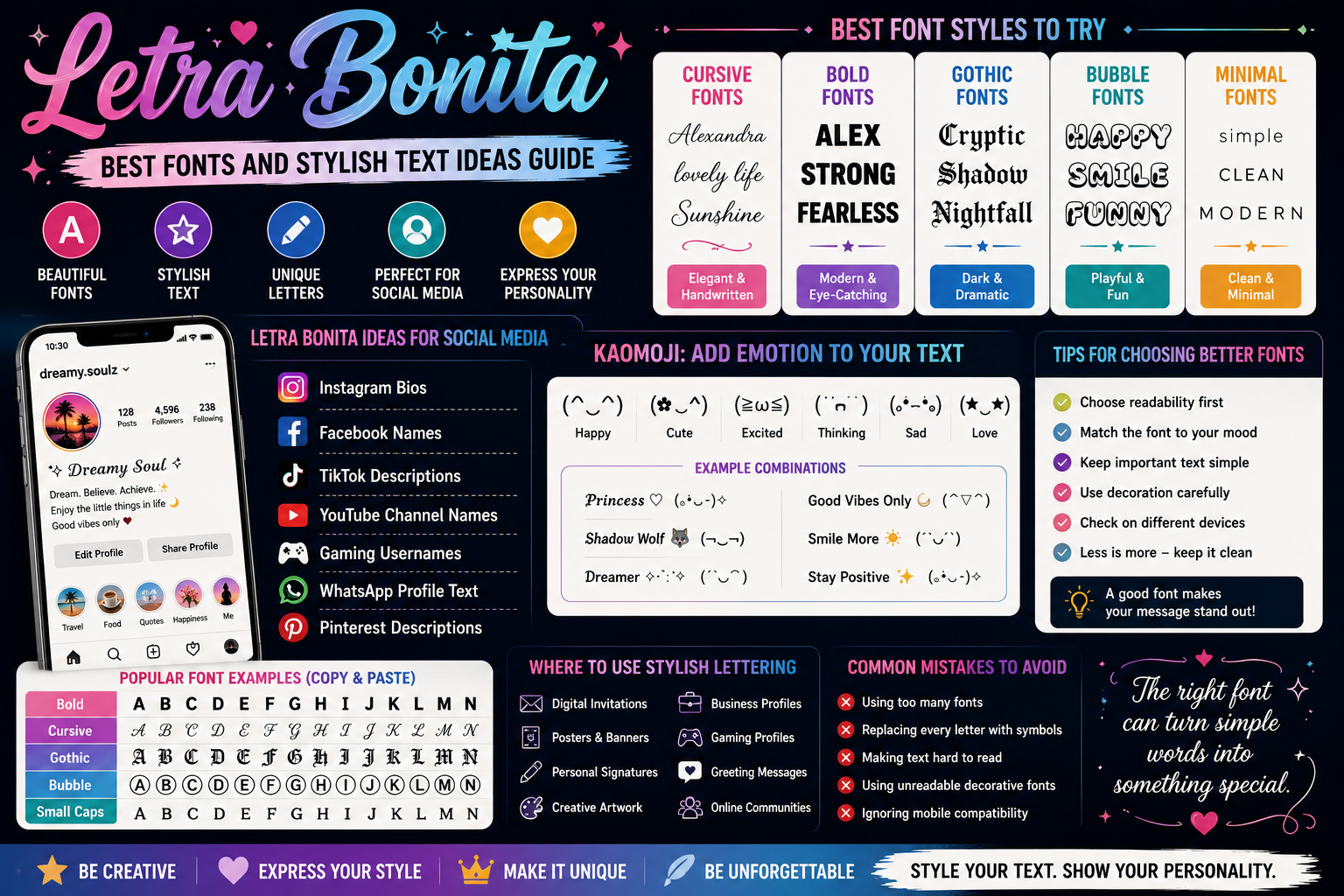
Letra Bonita: Best Fonts and Stylish Text Ideas Guide
Finding the right font can make ordinary words look much more interesting. Letra Bonita is a simple idea for anyone who wants to turn regular text into stylish, creative, and eye-catching writing. Whether you are creating a social media bio, profile name, caption, invitation, or personal message, the right font can give your words a fresh look.
Stylish text is no longer limited to graphic designers or special editing apps. Today, people can use different font styles, symbols, decorative letters, and text combinations to make their content stand out. With a few creative choices, even a short name or sentence can have a completely different feel.
What Is Letra Bonita?
The phrase Letra Bonita means “beautiful lettering” in Spanish. It can refer to attractive handwriting, decorative fonts, fancy text, or creative lettering styles used for digital and printed content.
The idea is simple: take normal letters and present them in a more interesting way. Depending on the font, your text can look elegant, playful, bold, classic, or artistic.
Common examples include:
• Cursive and handwritten fonts
• Bold and modern lettering
• Gothic-style characters
• Bubble letters
• Small-capital text
• Decorative Unicode characters
• Spaced-out lettering
• Script-style fonts
These styles are useful for social profiles, usernames, captions, posters, digital invitations, and creative projects.
Best Font Styles to Try
Different situations call for different lettering styles. Choosing a suitable font can make your text easier to understand while still giving it personality.
Cursive Fonts
Cursive fonts are popular for names, quotes, wedding invitations, and personal posts. Their connected letters create a handwriting-like appearance.
Bold Fonts
Bold lettering works well when you want your words to stand out. It can be useful for headings, usernames, short announcements, and social media descriptions.
Gothic Fonts
Gothic lettering has a darker and more dramatic character. It is often used for gaming names, music-related profiles, creative artwork, and alternative-style content.
Bubble Letters
Bubble fonts have rounded shapes and a playful appearance. They are a good choice for casual posts, children’s content, profile names, and fun designs.
Minimal Fonts
Not every stylish design needs complicated characters. Clean and simple lettering can create a modern look while keeping the text easy to read.
Letra Bonita Ideas for Social Media
Social media is one of the easiest places to experiment with stylish text. A creative username or profile description can help create a memorable first impression.
You can use decorative lettering for:
• Instagram bios
• Facebook profile names
• TikTok descriptions
• YouTube channel names
• Gaming usernames
• WhatsApp profile text
• Pinterest descriptions
Try combining a stylish font with short words instead of changing every sentence. For example, a simple name can look more interesting when paired with a decorative symbol or a different letter style.
How Kaomoji Can Improve Stylish Text?
Kaomoji are text-based expressions made from letters, numbers, and symbols. They can show emotions or reactions without using traditional images. Popular examples represent happiness, surprise, confusion, excitement, or affection.
Kaomoji can work well beside decorative text because they add personality to short messages. However, moderation is important. Using too many symbols can make your content difficult to read.
For example, you can combine:
• A stylish username with a simple Kaomoji
• A decorative quote with a small expression
• Fancy lettering with a few text symbols
• A short bio with creative characters
The goal should be to make the text more interesting without hiding its main message.
Tips for Choosing Better Fonts
A stylish font is useful only when people can still read it easily. Before choosing a design, think about where you plan to use the text and who will read it.
Keep these tips in mind:
1. Choose readability first: Avoid fonts where letters are difficult to recognize.
2. Match the mood: Use elegant styles for formal designs and playful fonts for casual content.
3. Keep important text simple: Names, instructions, and key information should remain clear.
4. Use decoration carefully: A few symbols can add character without creating clutter.
5. Check different devices: Some special characters may appear differently across phones and computers.
Where to Use Stylish Lettering?
Creative fonts can be useful in both personal and professional projects. Bloggers can use them for social posts, while creators may use them in thumbnails, banners, and profile descriptions.
They can also work for:
• Digital invitations
• Personal signatures
• Posters
• Creative artwork
• Business social profiles
• Gaming profiles
• Online communities
• Greeting messages
For professional branding, however, it is usually better to keep the main business name simple and use decorative fonts only where they support the design.
Letra Bonita for Creative Content
Letra Bonita can give ordinary words a more personal touch when used with the right font and layout. The best results usually come from combining attractive lettering with clear wording rather than filling a design with complicated characters.
Experiment with several font categories and compare how each one changes the mood of your text. You may find that a simple cursive style works better than an extremely decorative design.
Common Mistakes to Avoid
Stylish text can lose its effect when it becomes too difficult to read. Avoid using several unrelated fonts in one piece of content, especially when the text is long.
Also avoid replacing every character with unusual symbols. Some devices and platforms may not display special Unicode characters correctly. If your message contains important information, make sure the original meaning remains clear.
Conclusion
Letra Bonita offers an easy way to make ordinary words more creative through attractive fonts, decorative characters, and thoughtful text design. From cursive and Gothic lettering to simple styles and Kaomoji, there are plenty of options for personal and social media content.
The best font is not always the most complicated one. Choose a style that fits your message, keep important text readable, and use decorative elements in moderation. With a little experimentation, you can create stylish text that looks unique while remaining easy for others to understand.